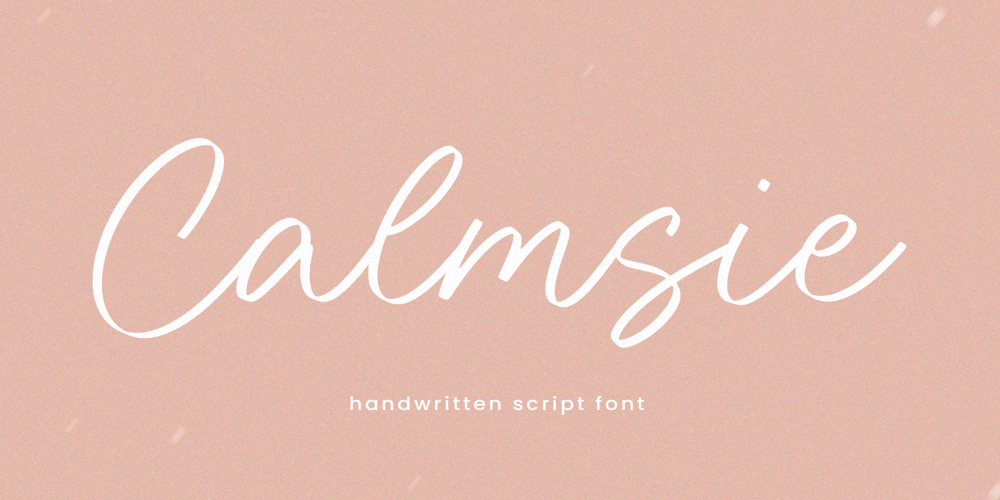
Calmsie
Calmsie font
Calmsie Font Family was designed by Wara Sigit Tri Pamungkas and published by Timurtype. Calmsie contains 1 styles and family package options. Calmsie A Handwritten Script FontCalmsie is perfect for product packaging, branding project, magazine, social media, weddings, or just used to express words above the background.This Calmsie font includes:Calmsie multilingual support.Embellish your designs with our original fonts. Enjoy the font, Thank you!